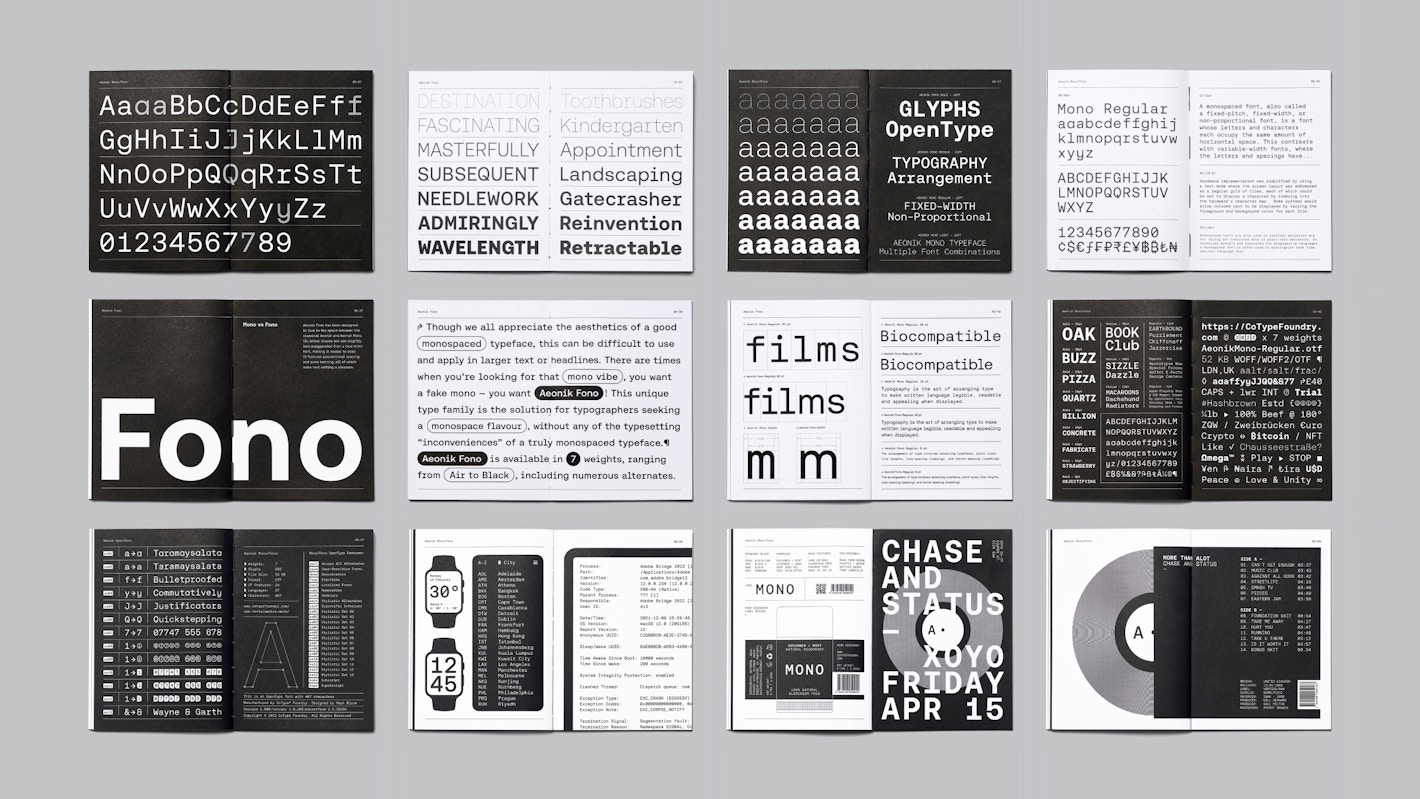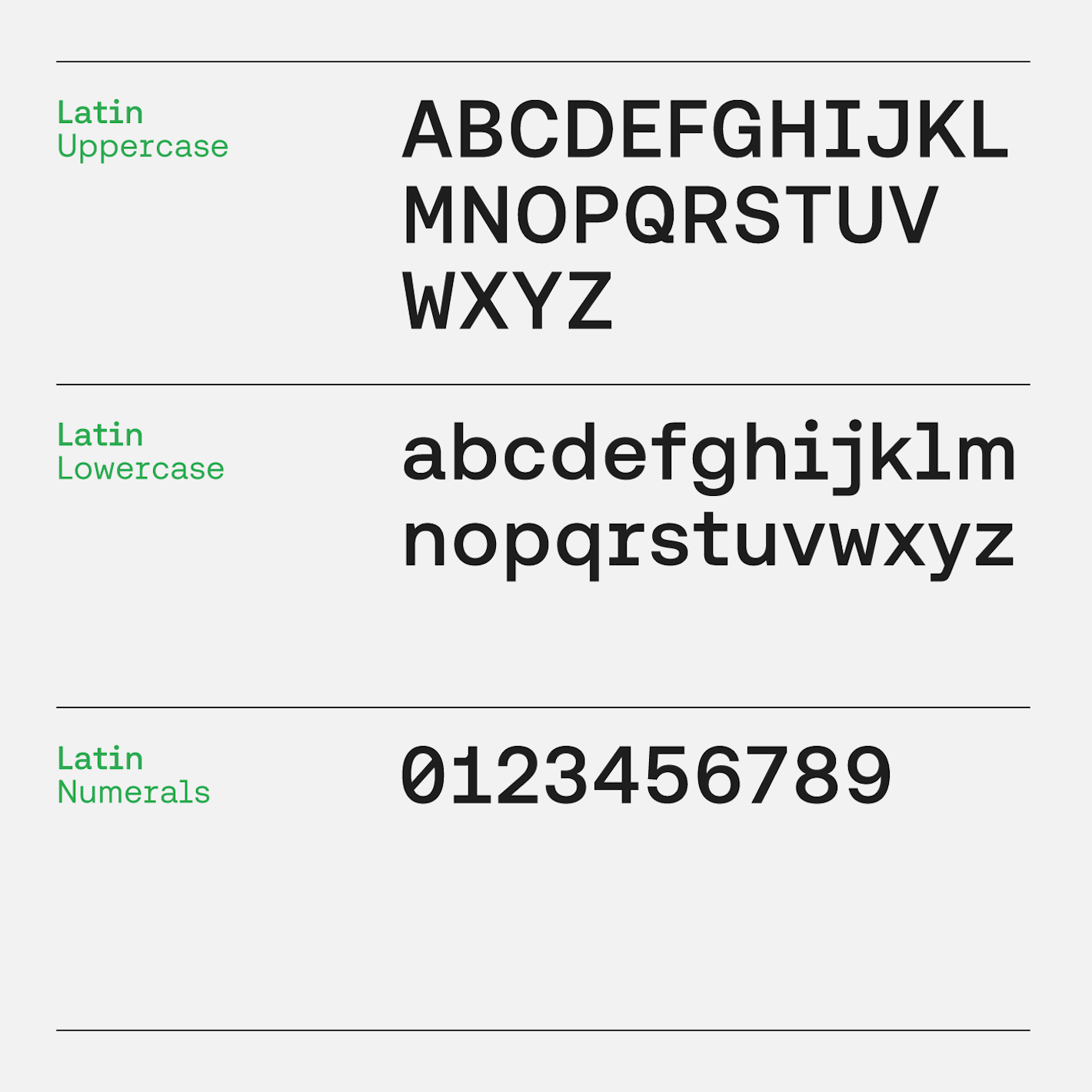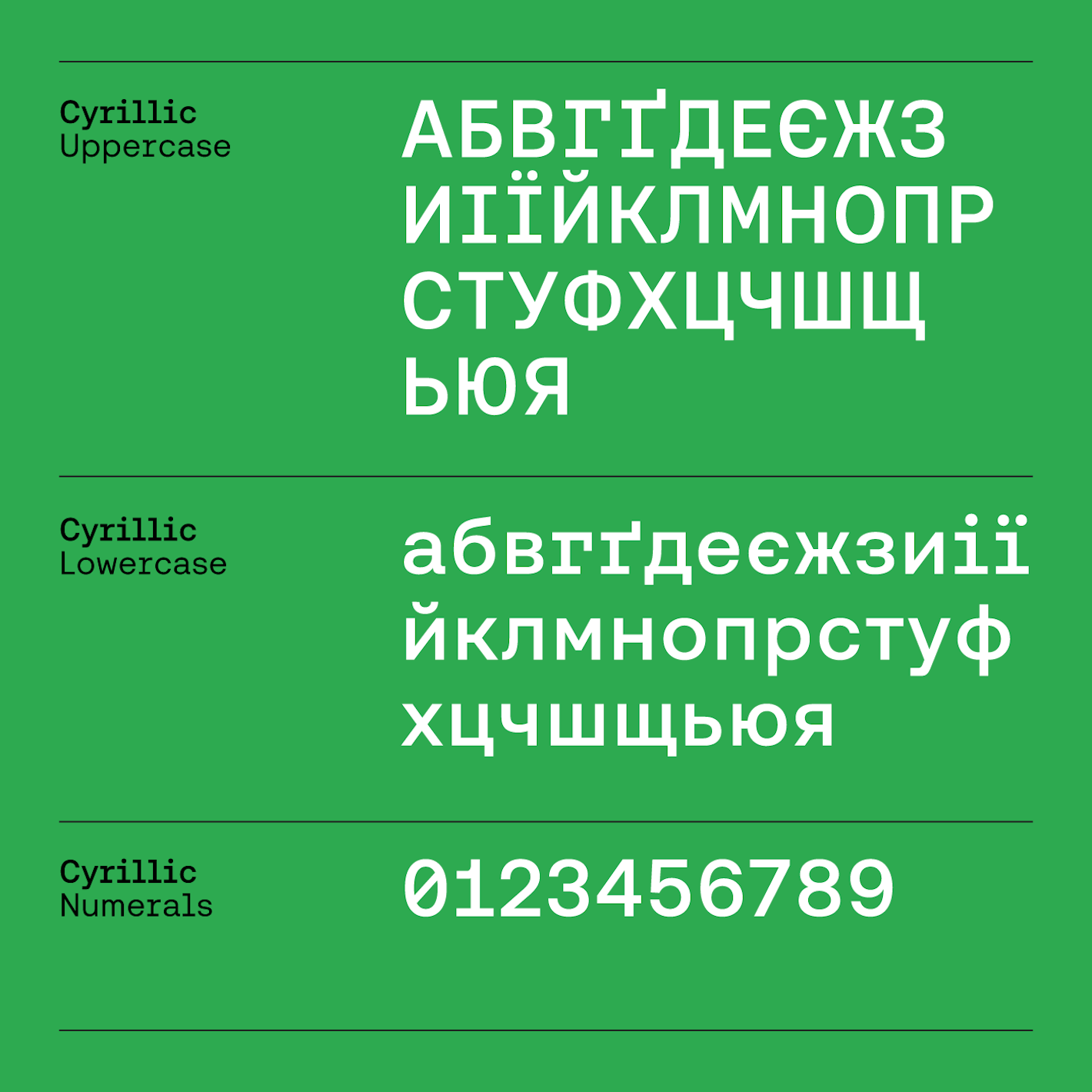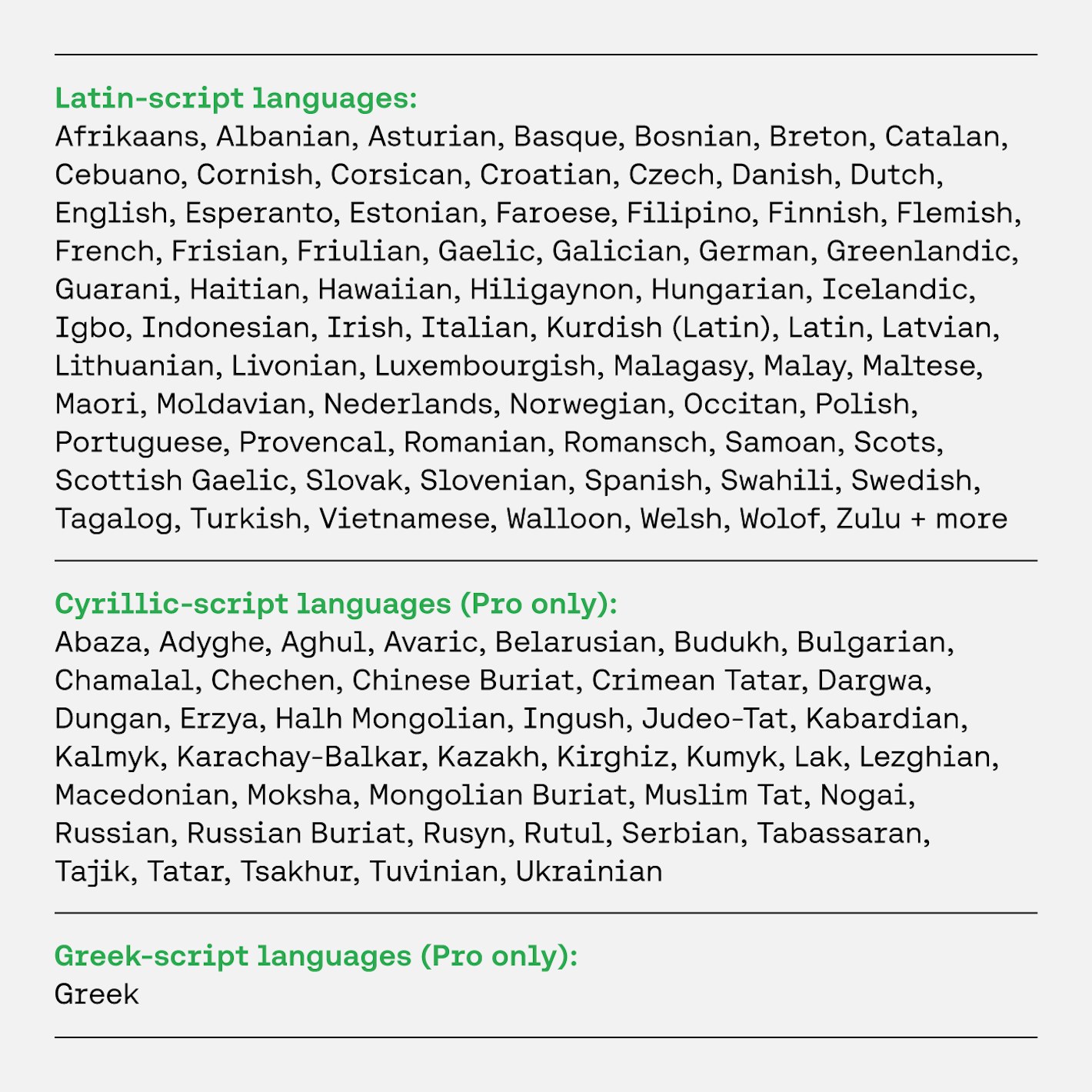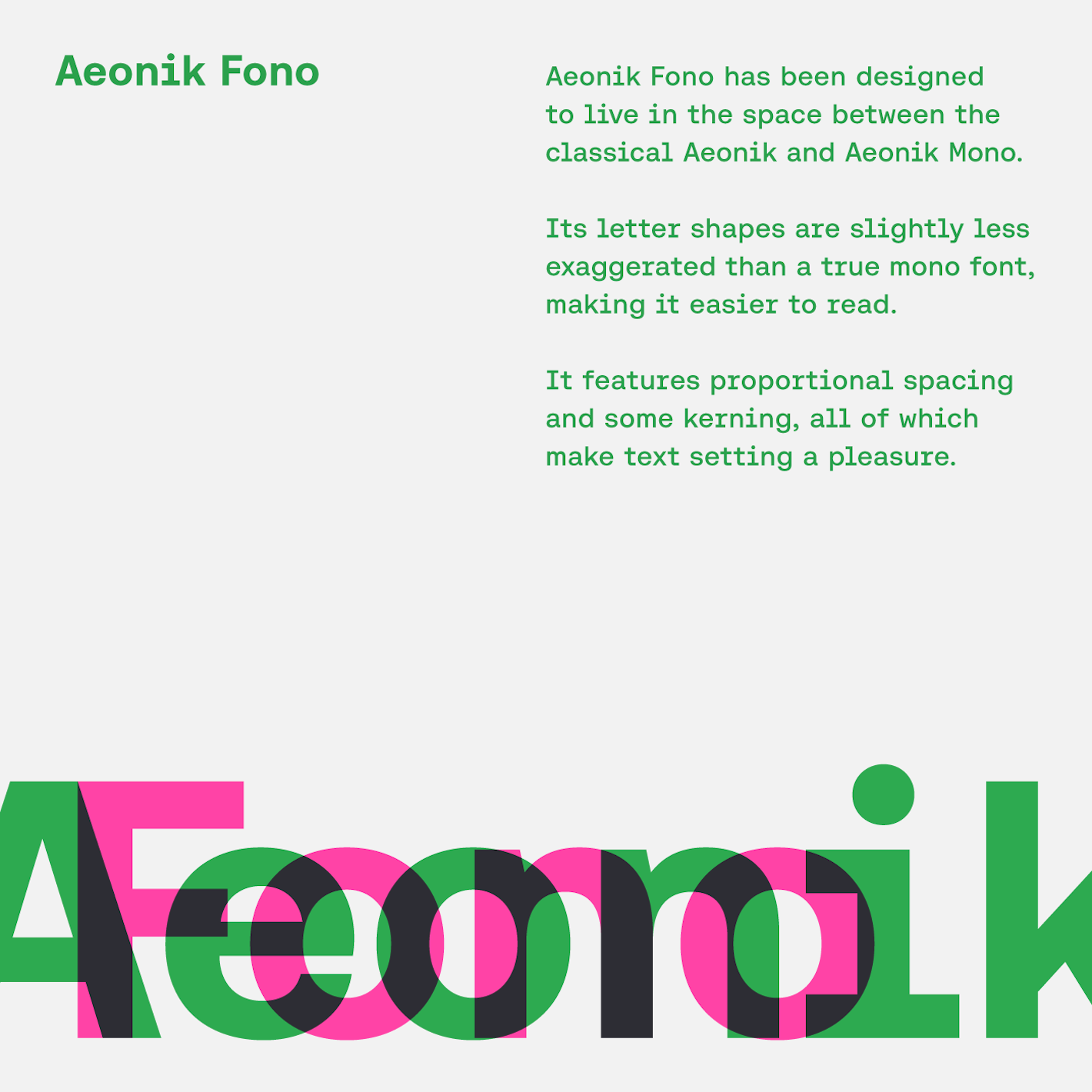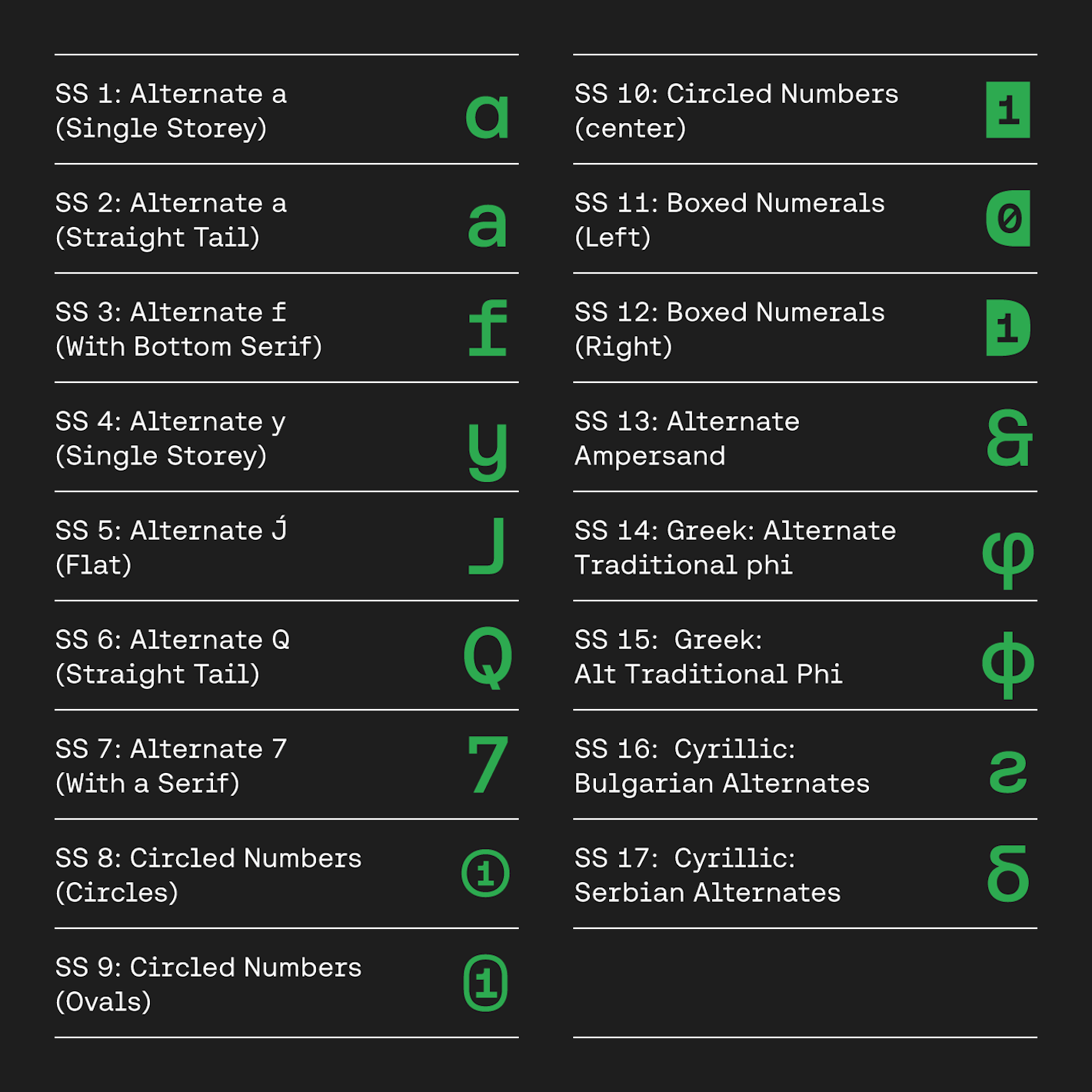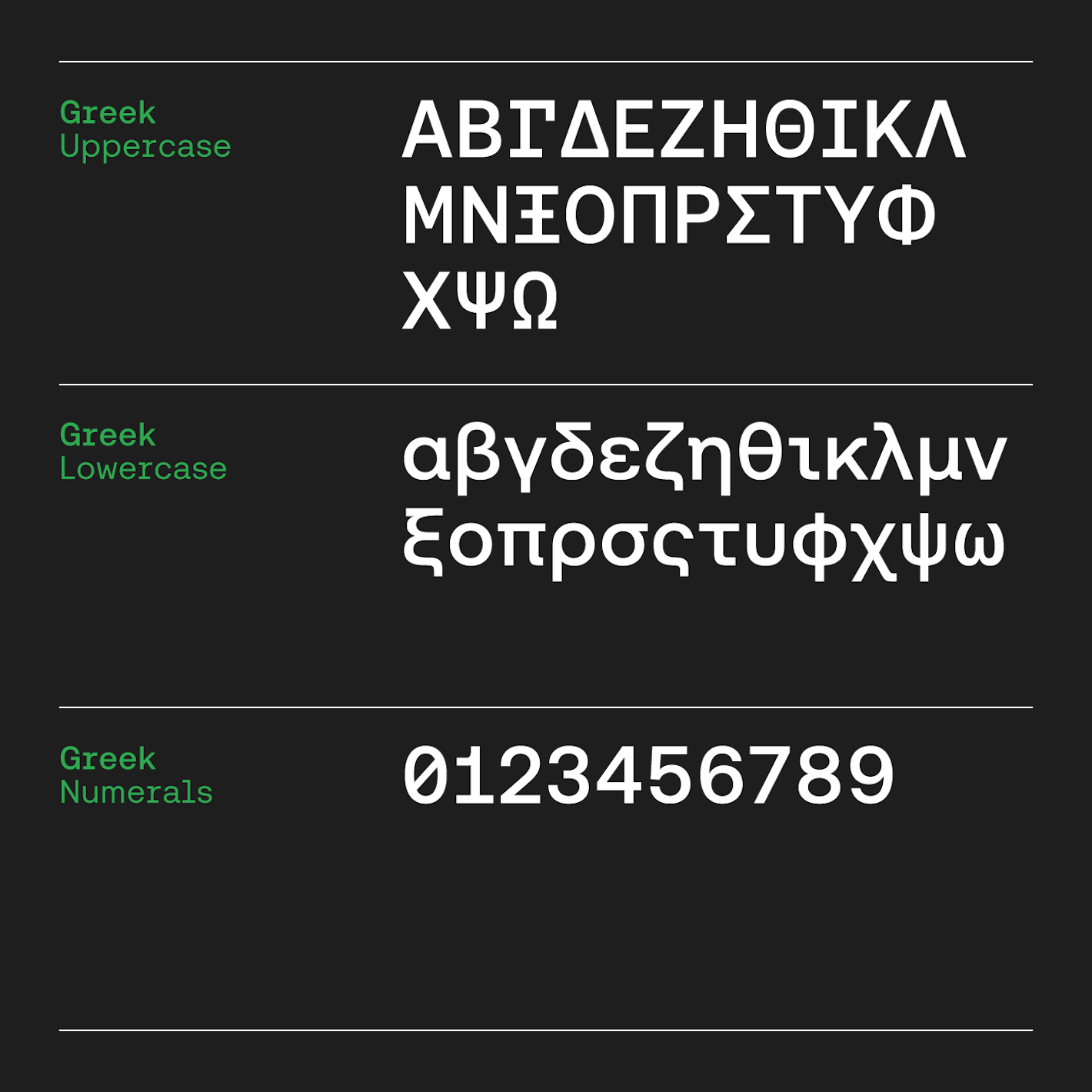
Aeonik Fono delivers the charm of a monospaced aesthetic without the limitations of a true mono font. Designed for typographers seeking that “mono vibe,” it blends the best of classical Aeonik and Aeonik Mono into a proportional type family that’s a pleasure to use in text and headlines alike.
With proportional spacing and kerning, Aeonik Fono is easier to read than traditional monospaced fonts while maintaining the mono-inspired feel. It is available in eight weights, from Thin to Black, and supports an extensive range of languages, including most European languages written in the Latin script, as well as Vietnamese, multiple Cyrillic-based languages, and Greek. Language support options can be selected at checkout.
Just like Aeonik, Aeonik Fono features closed apertures, perpendicular stroke endings, and clean, well-defined letterforms. To evoke the mono aesthetic, long serifs have been added to letters like ‘i,’ ‘j,’ ‘l,’ and ‘I.’ It also brings a playful twist to the Aeonik family with boxed and circled numeral sets, as well as alternates for characters like ‘a,’ ‘f,’ ‘y,’ ‘J,’ ‘Q,’ ‘7,’ and ‘&.’ Three arrow sets – small arrows, uppercase arrows, and navigational arrows – further expand its versatility.
Ideal for editorial and branding projects, Aeonik Fono offers more dynamic proportions and oversized serifs, taking the grotesque genre into fresh territory. It pairs seamlessly with the original Aeonik, making it perfect for projects that demand a creative or complex typographic hierarchy.